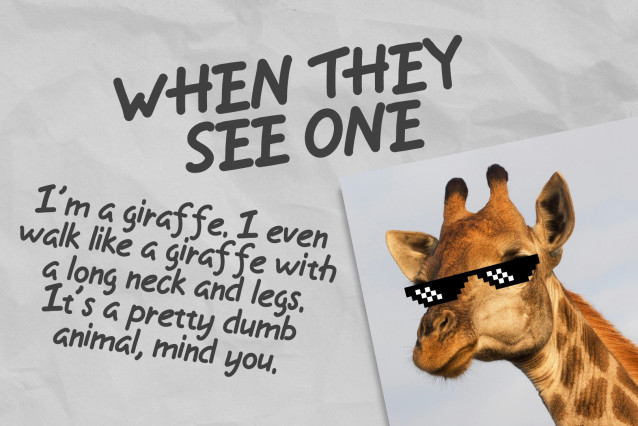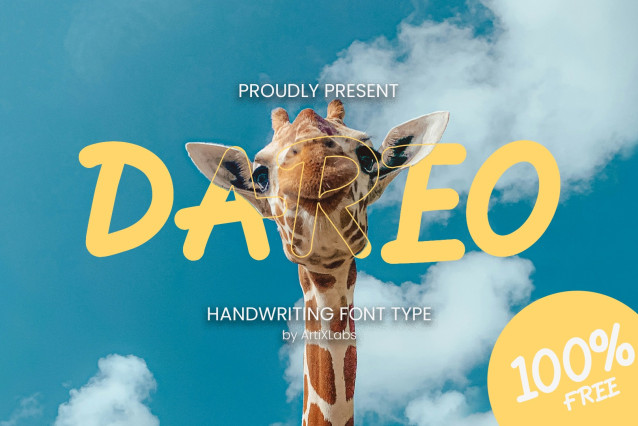
Dareo Playful Font
Dareo Playful Font – This Font can be used for any variety of purposes, such as: Event, Social Media Feed,Flyer, Packaging Products, Logo Type, Branding, T-Shirt Design, Website/Blog, Headline Magazine, Brochures and also can be used for other purpose.
This Font Template contains Rounded,Versatile,Soft, Creative, Professional and Unique Concept.